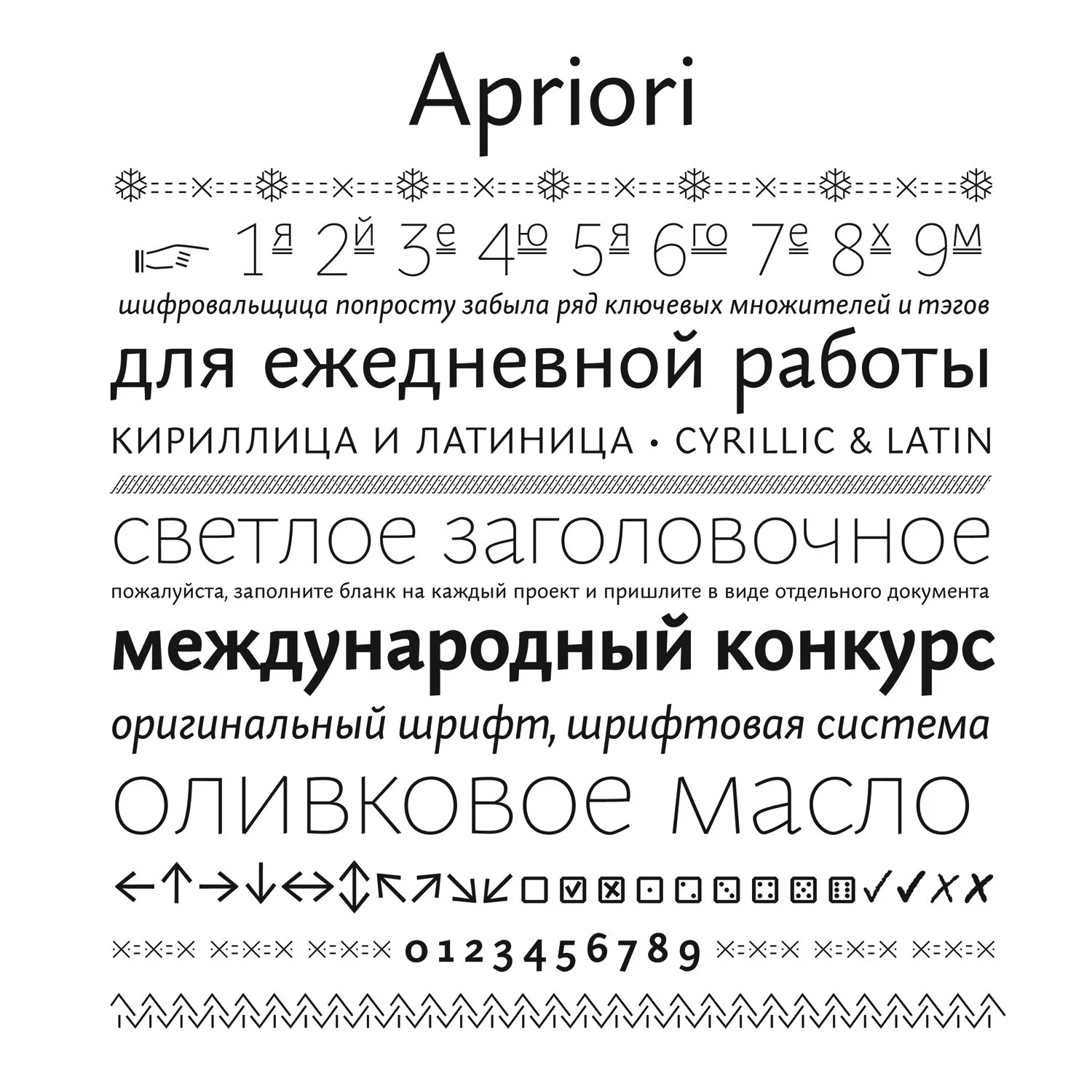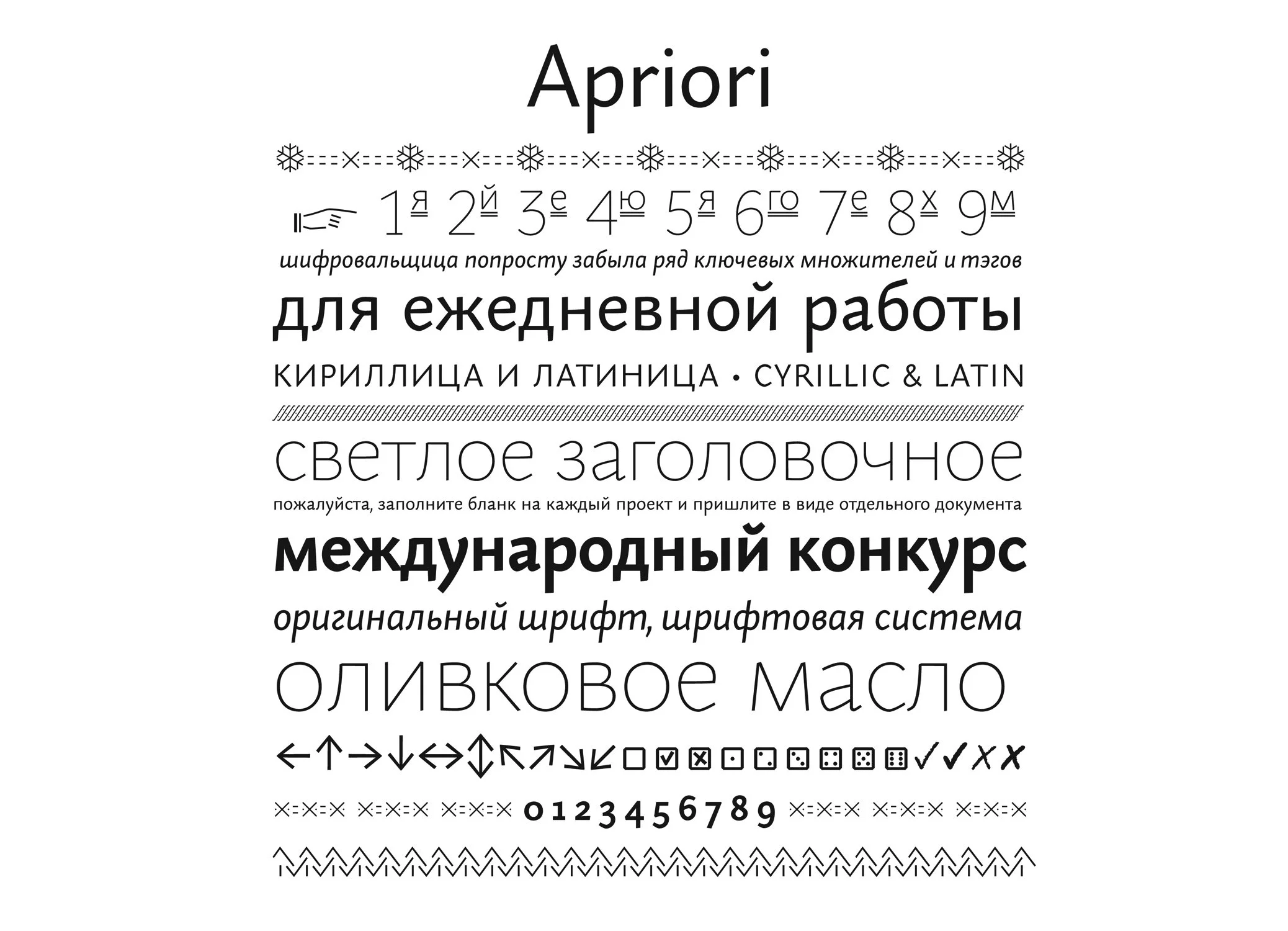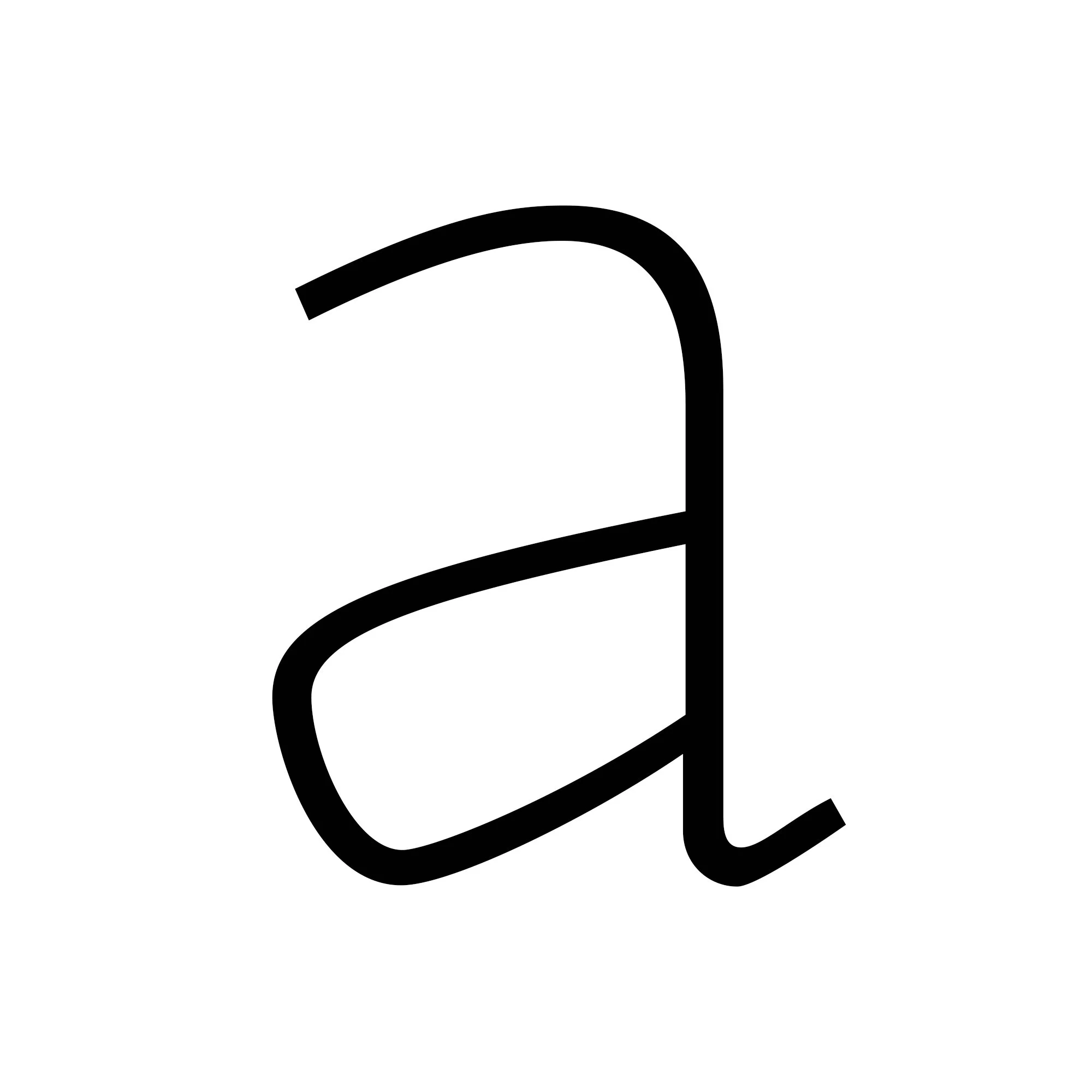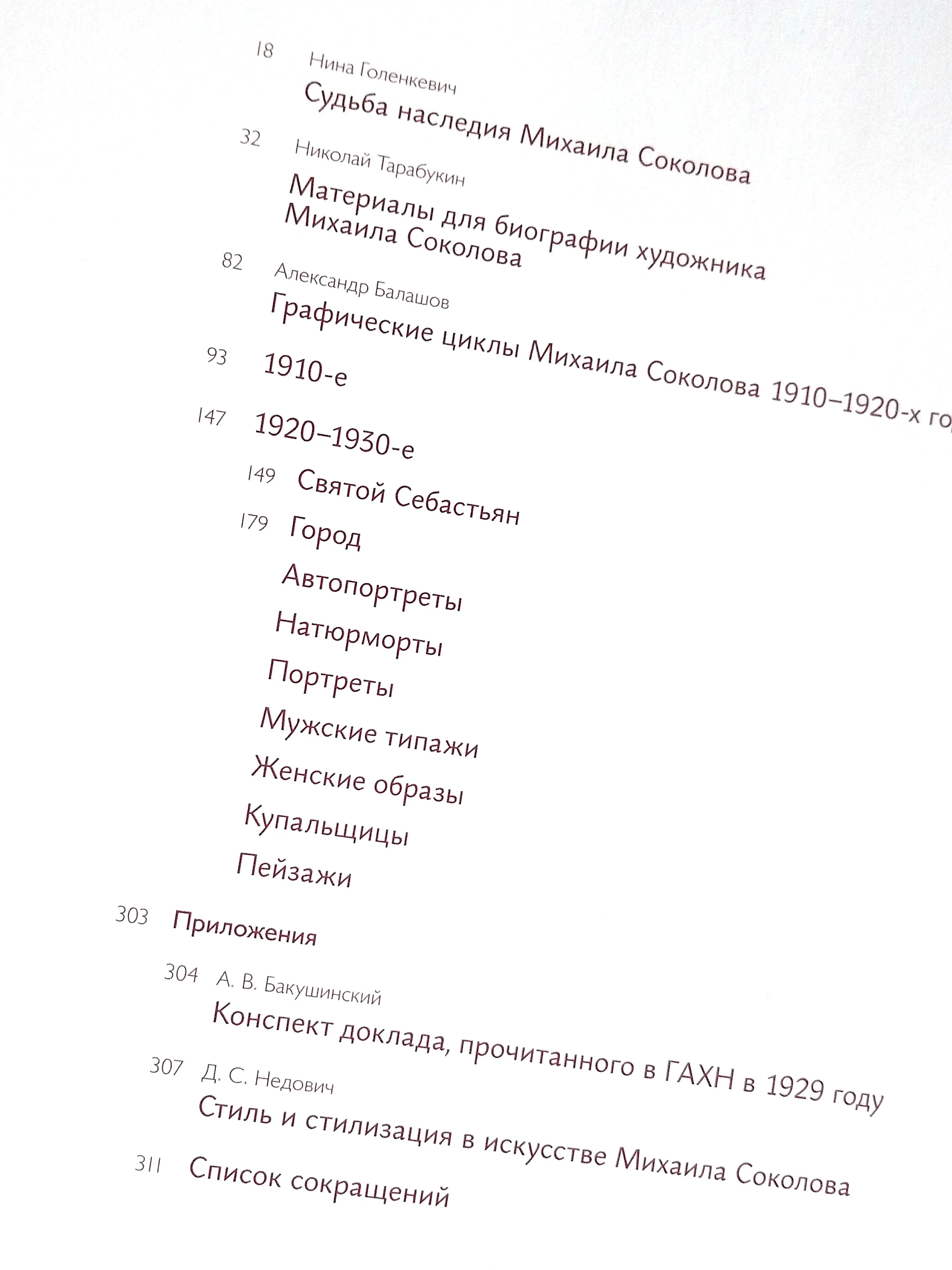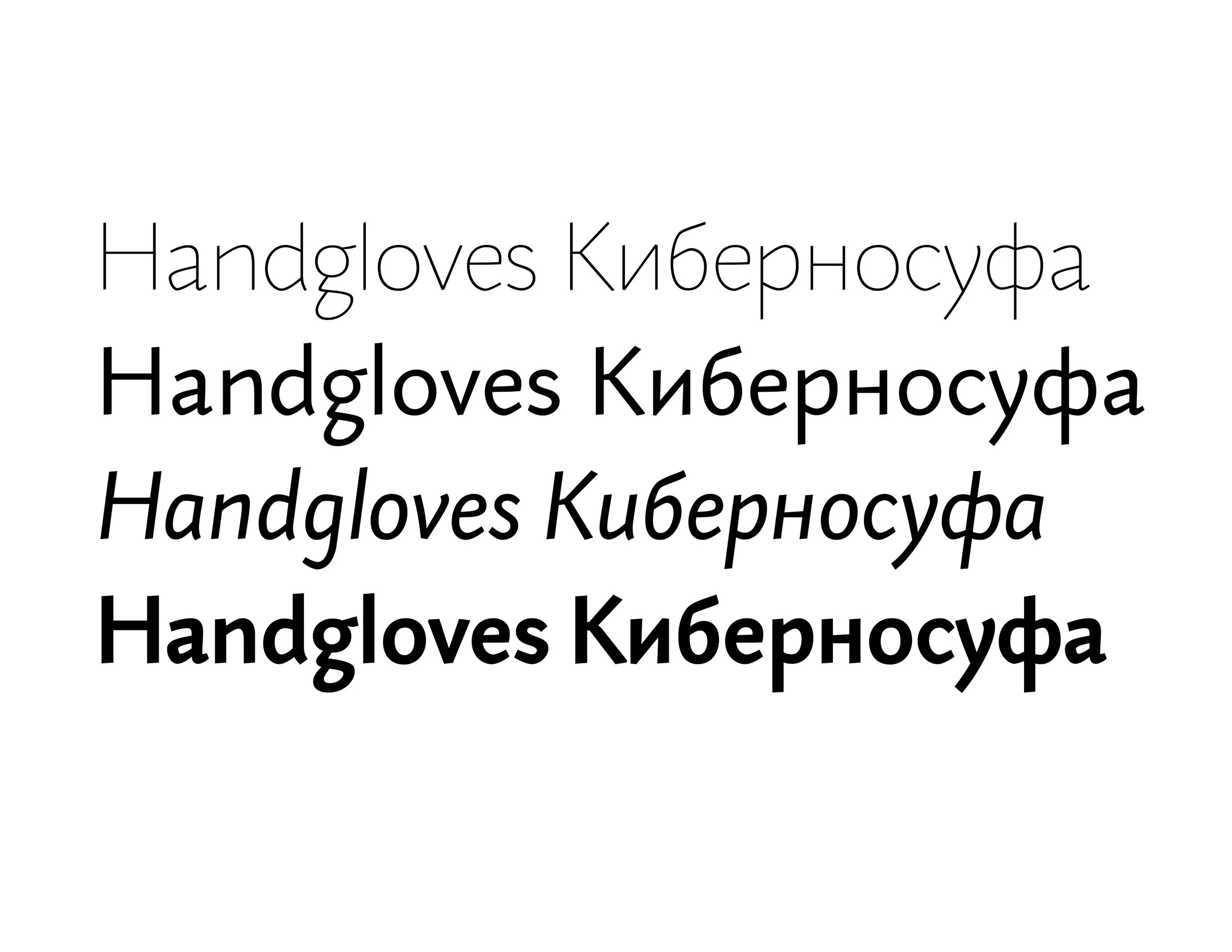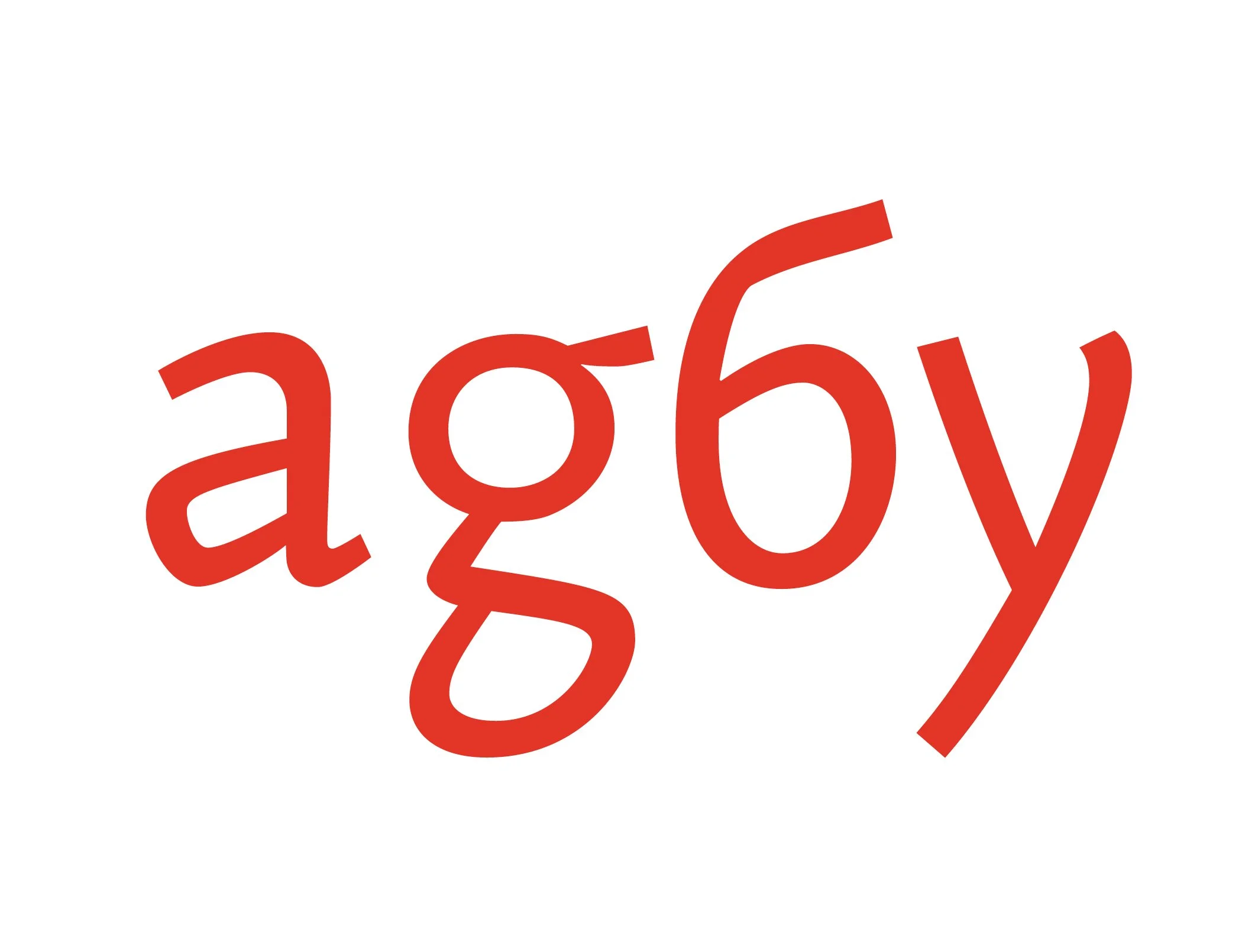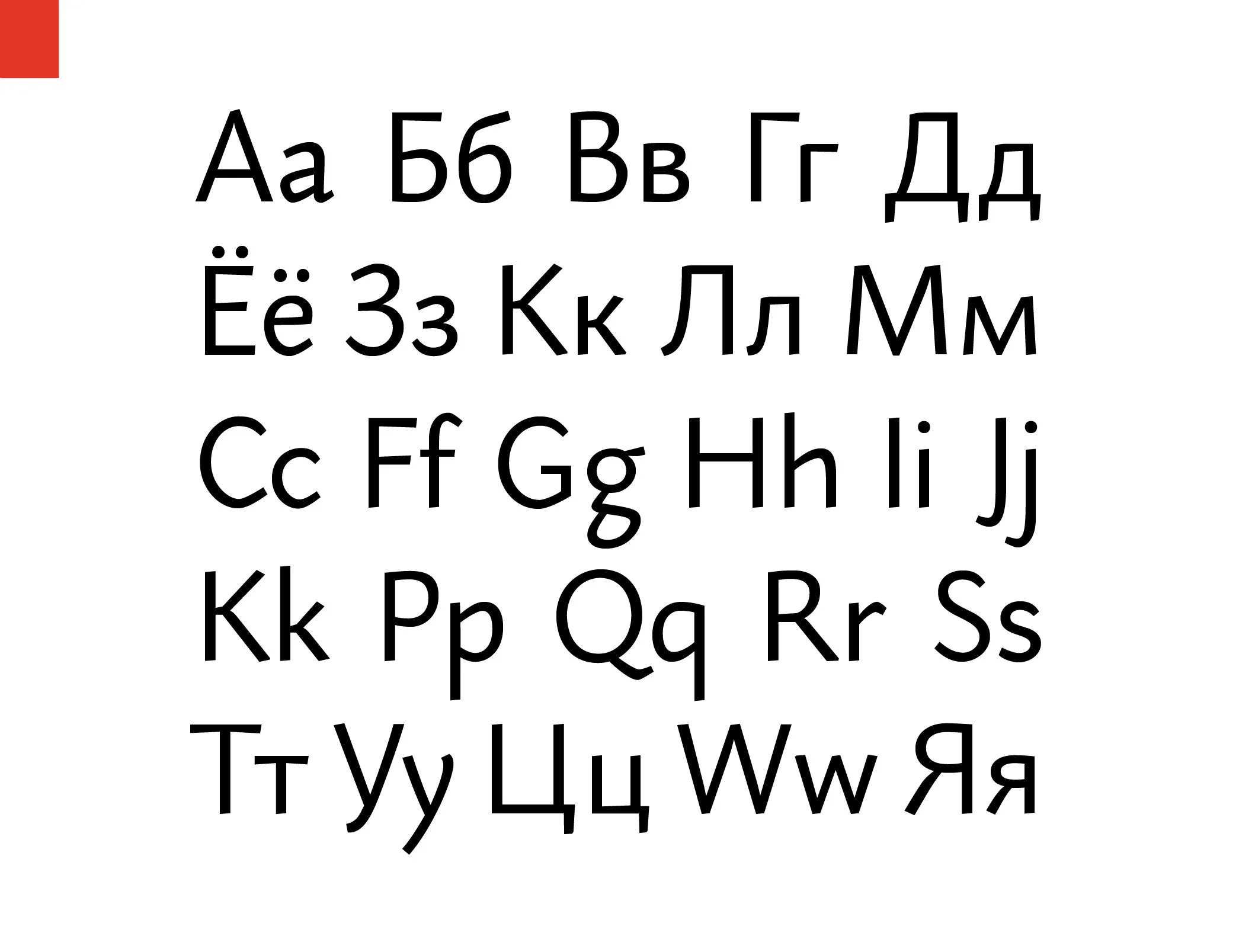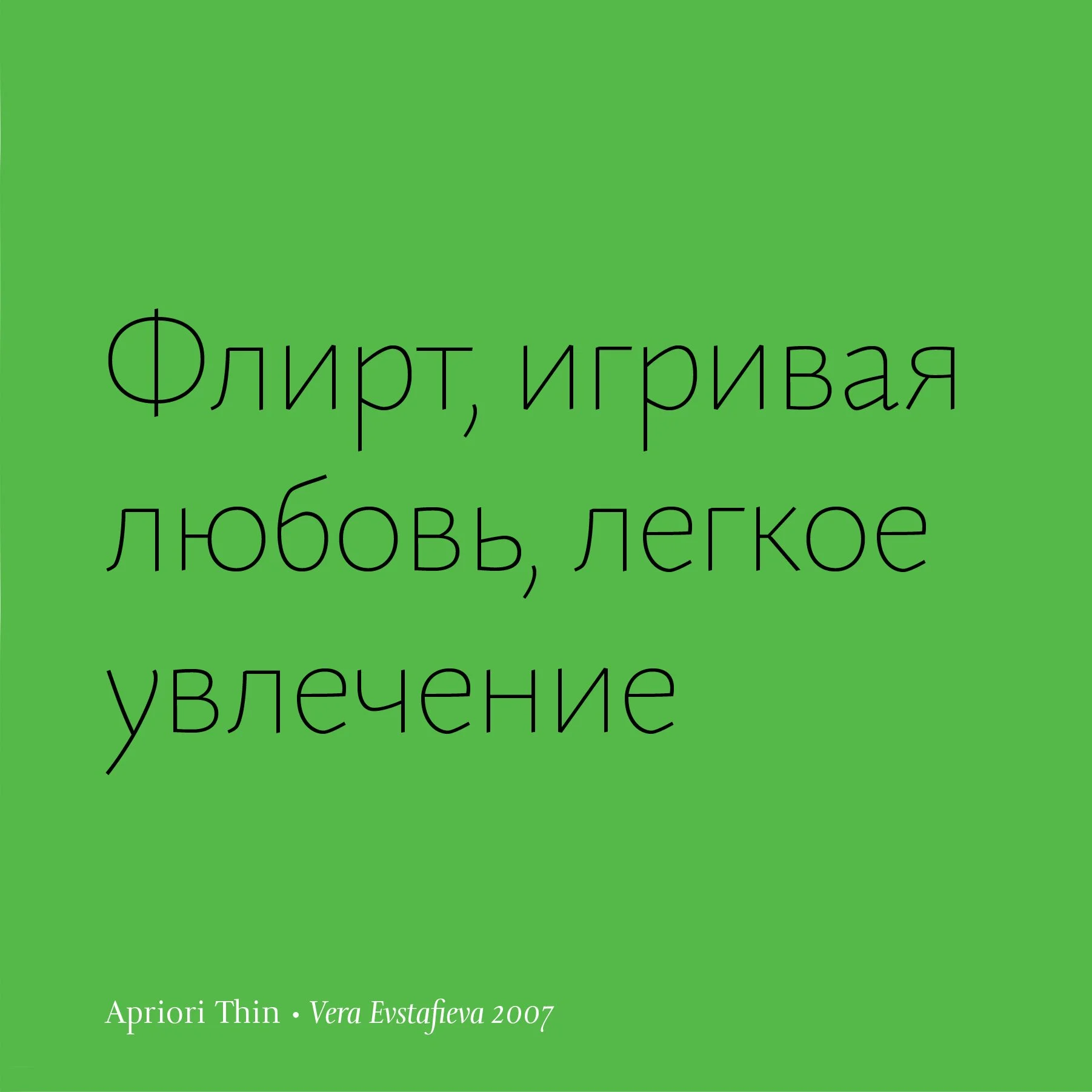
Apriori typeface was designed for a commission as a corporate type for consulting company Formatta in 2008. Apriori consists of Regular, Bold, Italic and Thin styles. It’s a text Humanist sans serif type, dynamic, edgy and soft at the same time.